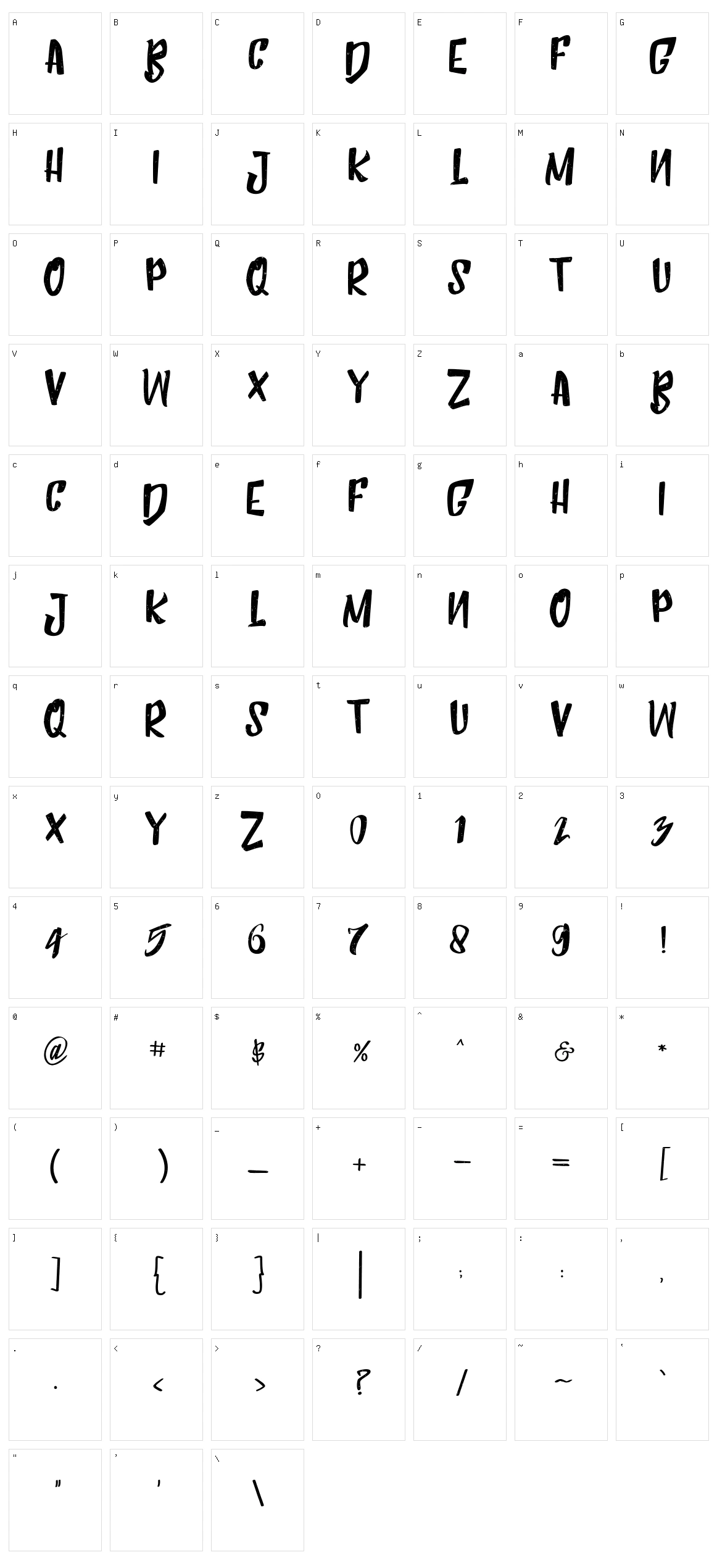
Humblle Rought - a modern vintage Brush typeface style with some combination of style Street And LifeStyle. wild hand and imperfect flow give the natural looks. So beautiful on invitation like greeting cards, branding materials, business cards, quotes, posters, and more!